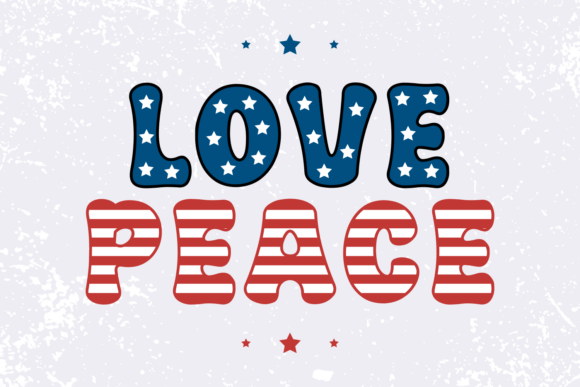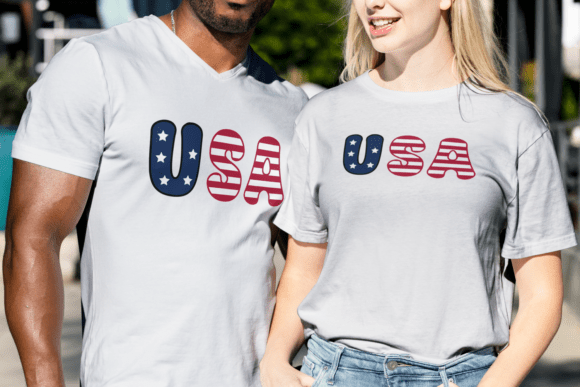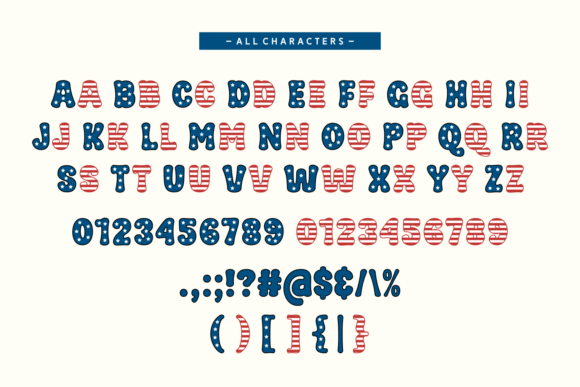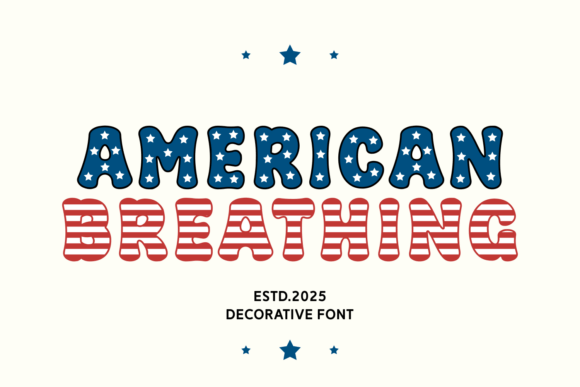
Introducing the American Breathing Font: A Standout Typeface for Your Designs
Immerse yourself in the American Breathing Font, a remarkable typeface that breathes life into every design it graces. Crafted with a delicate touch and an eye for detail, this decorative font intertwines a stroke of patriotism with its Star theme, making it a perfect addition to your typography collection.
A Patriotic Touch
The American Breathing Font is more than just a typeface; it’s a statement piece that reflects the culture and vibrancy of the USA. The patriotic undertones are evident in this typeface, making it an ideal choice for designers looking to add a touch of American flair to their work. Whether you’re designing a logo, a poster, or a website, this font is sure to make a lasting impression.
Unique and Memorable
This unique font adds a memorable impact to any design piece, setting it apart from more traditional typefaces. The American Breathing Font’s distinctive style is sure to capture the attention of your audience, making it perfect for projects that require a bit of personality and flair. From crafters to professional designers, this font is a versatile tool that can be used in a variety of creative projects.
Crafted with Care
Crafted with a delicate touch and an eye for detail, the American Breathing Font is a testament to the power of typography. The font’s creator has carefully crafted each letter and symbol to ensure that it is not only aesthetically pleasing but also highly legible. This attention to detail makes the font suitable for use in a wide range of applications, from large-scale signage to small-scale digital projects.
Star Theme: A Nod to American Symbolism
The Star theme that runs throughout the American Breathing Font is a nod to American symbolism and patriotism. The stars and stripes motif is an iconic representation of the USA, and this font incorporates it in a unique and creative way. The result is a typeface that is both visually striking and deeply rooted in American culture.
Whether you’re a professional designer or a crafter looking to add a personal touch to your projects, the American Breathing Font is a versatile tool that can help you achieve your creative goals. Its unique style and patriotic undertones make it perfect for a wide range of projects, from:
- Websites and digital marketing materials
- Craft projects, such as scrapbooking and card making
Tips for Using the American Breathing Font
To get the most out of the American Breathing Font, here are a few tips to keep in mind:
- Use it sparingly: Due to its bold and eye-catching style, it’s best to use the American Breathing Font sparingly to avoid overwhelming your design.
- Pair it with complementary fonts: Pair the American Breathing Font with simpler fonts to create visual interest and hierarchy in your design.
- Experiment with colors: The American Breathing Font looks great in a variety of colors, so don’t be afraid to experiment and find the perfect hue for your project.
| Font Name | American Breathing Font |
| Author | Darman (7NTypes) |
In conclusion, the American Breathing Font is a standout typeface that is sure to breathe life into your designs. Its unique style, patriotic undertones, and versatility make it a valuable addition to any designer’s or crafter’s toolkit. Whether you’re looking to add a touch of American flair to your project or simply want to create something memorable and eye-catching, this font is sure to deliver.